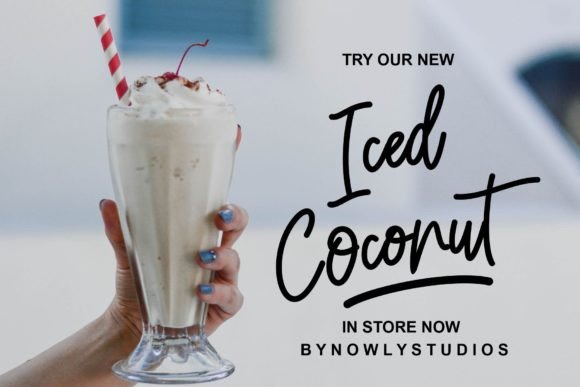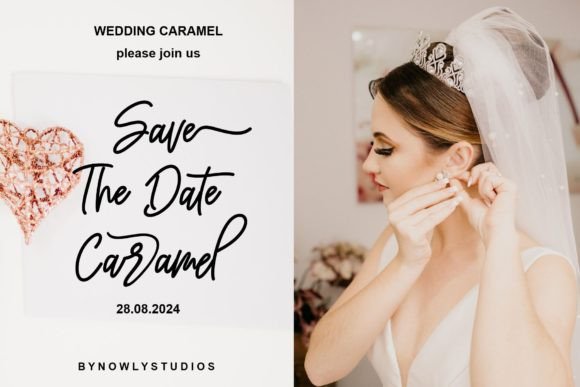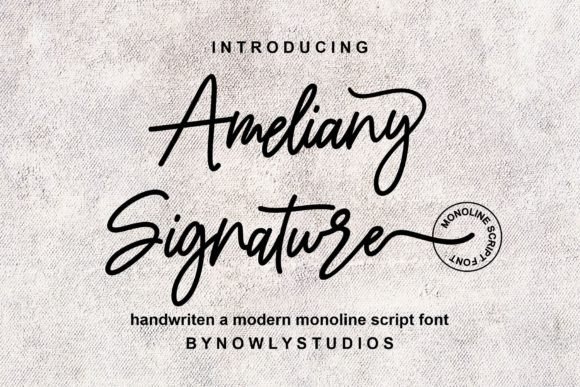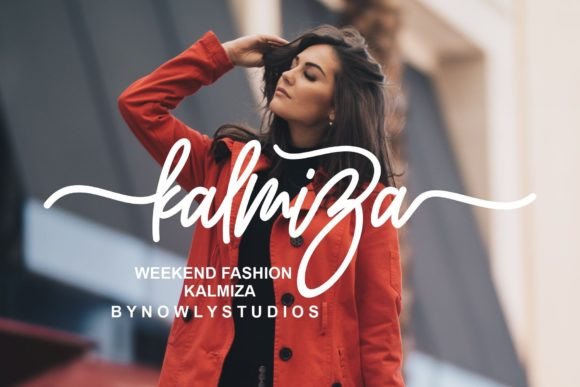
Ameliany Signature Font
About the Ameliany Signature Font
The Ameliany Signature Font is here to transform your projects with its distinctive character and style. Ameliany Signature is a monoline script font with a cursive style, as many characters are smoothly connected.
This lovely typeface is great for designers who are seeking a natural and authentic style in their creations! This gorgeous font includes all lowercase and uppercase characters, numbers, punctuation, alternate, an array of standard ligatures, and a selection of international characters as well.